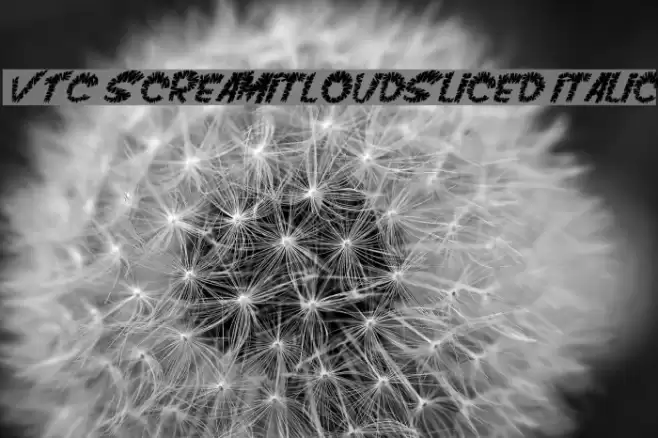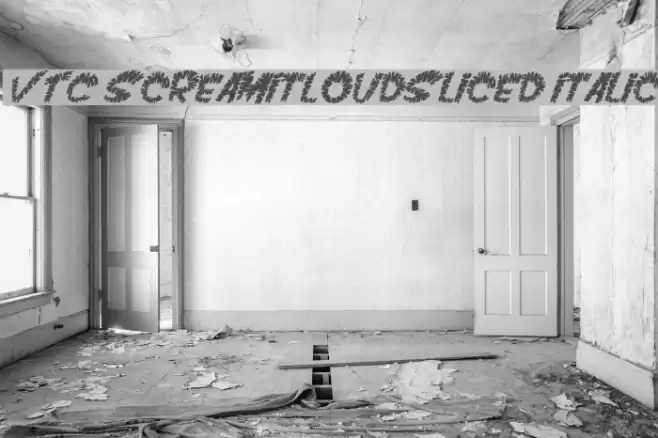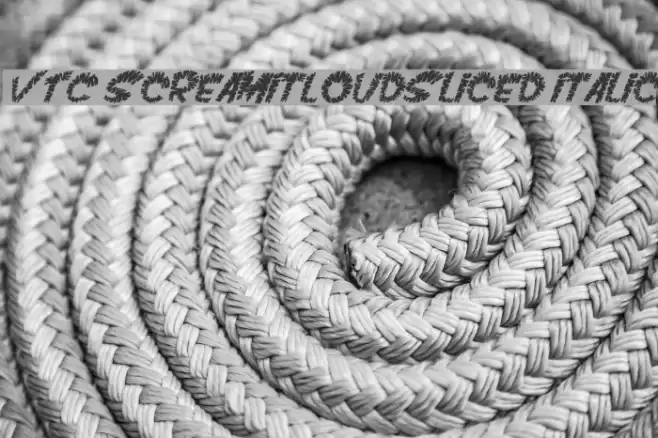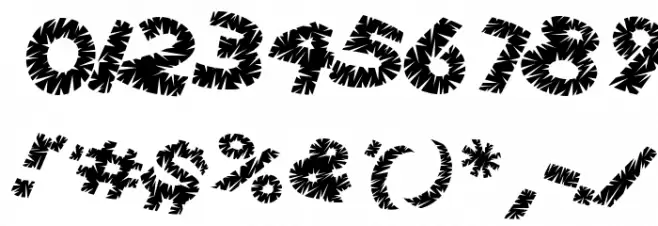
VTC ScreamItLoudSliced Italic Font
VTC ScreamItLoudSliced Italic Description
This font features a bold, dynamic style with a sliced, jagged appearance that creates a sense of movement and energy. The characters are italicized, adding to the sense of speed and urgency. Each letter and number is composed of sharp, angular cuts that give it a unique, edgy look. The font is highly decorative, making it stand out in any design. It is ideal for projects that require a bold statement or a sense of excitement and intensity. The overall style is modern and unconventional, perfect for grabbing attention.
A bold, sliced, and italicized font with a dynamic, edgy appearance from Uncategorized fonts.
- Proposed Projects: Ideal for music album covers, event posters, video game titles, and any project needing a bold, energetic look.
- Overall Style: Modern, Edgy